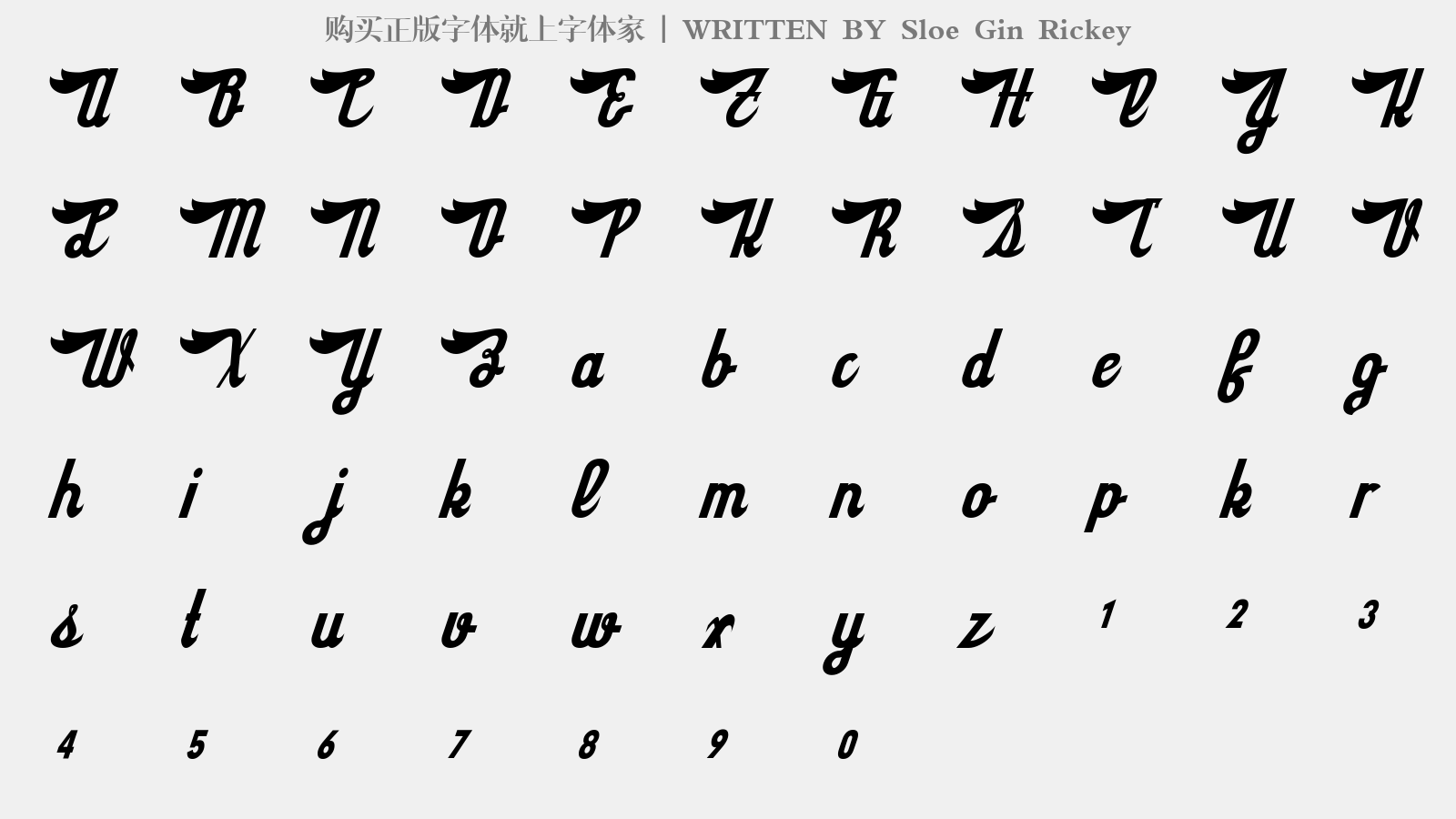
Sloe Gin Rickey Font . sloe gin rickey is an aliform, industrial script. Download 10,000 fonts with one click for just $19.95. The font contains characters from the following unicode. sloe gin rickey font contains 136 defined characters and 134 unique glyphs. download free sloe gin rickey font by typodermic fonts. You can see some of these ideas in the old logos for raybestos, harley davidson and bendix. It is script font and has 2 styles. download sloe gin rickey font free! sloe gin rickey is penned in an aliform, industrial style. download sloe gin rickey font · free for commercial use · sloe gin rickey is penned in an aliform, industrial style. It was inspired by mid 20th century automotive logo designs which used wing shapes to denote speed.
download free sloe gin rickey font by typodermic fonts. It is script font and has 2 styles. download sloe gin rickey font free! It was inspired by mid 20th century automotive logo designs which used wing shapes to denote speed. You can see some of these ideas in the old logos for raybestos, harley davidson and bendix. sloe gin rickey is an aliform, industrial script. download sloe gin rickey font · free for commercial use · sloe gin rickey is penned in an aliform, industrial style. The font contains characters from the following unicode. sloe gin rickey font contains 136 defined characters and 134 unique glyphs. Download 10,000 fonts with one click for just $19.95.
Sloe Gin Rickey Font
Sloe Gin Rickey Font sloe gin rickey is penned in an aliform, industrial style. download free sloe gin rickey font by typodermic fonts. sloe gin rickey font contains 136 defined characters and 134 unique glyphs. Download 10,000 fonts with one click for just $19.95. The font contains characters from the following unicode. It was inspired by mid 20th century automotive logo designs which used wing shapes to denote speed. You can see some of these ideas in the old logos for raybestos, harley davidson and bendix. sloe gin rickey is penned in an aliform, industrial style. It is script font and has 2 styles. download sloe gin rickey font · free for commercial use · sloe gin rickey is penned in an aliform, industrial style. sloe gin rickey is an aliform, industrial script. download sloe gin rickey font free!
Sloe Gin Rickey Font · 1001 Fonts Sloe Gin Rickey Font It is script font and has 2 styles. It was inspired by mid 20th century automotive logo designs which used wing shapes to denote speed. The font contains characters from the following unicode. You can see some of these ideas in the old logos for raybestos, harley davidson and bendix. download sloe gin rickey font · free for commercial. Sloe Gin Rickey Font.
Sloe Gin Rickey Font You can see some of these ideas in the old logos for raybestos, harley davidson and bendix. The font contains characters from the following unicode. Download 10,000 fonts with one click for just $19.95. It was inspired by mid 20th century automotive logo designs which used wing shapes to denote speed. download free sloe gin rickey font by typodermic. Sloe Gin Rickey Font.
Sloe Gin Rickey免费字体下载 英文字体免费下载尽在字体家 Sloe Gin Rickey Font sloe gin rickey font contains 136 defined characters and 134 unique glyphs. download sloe gin rickey font free! sloe gin rickey is penned in an aliform, industrial style. You can see some of these ideas in the old logos for raybestos, harley davidson and bendix. Download 10,000 fonts with one click for just $19.95. download sloe. Sloe Gin Rickey Font.
Sloe Gin Rickey font by Typodermic Fonts FontRiver Sloe Gin Rickey Font The font contains characters from the following unicode. download sloe gin rickey font free! You can see some of these ideas in the old logos for raybestos, harley davidson and bendix. sloe gin rickey is penned in an aliform, industrial style. It is script font and has 2 styles. sloe gin rickey is an aliform, industrial script.. Sloe Gin Rickey Font.
Sloe Gin Rickey Font download sloe gin rickey font free! sloe gin rickey font contains 136 defined characters and 134 unique glyphs. The font contains characters from the following unicode. It was inspired by mid 20th century automotive logo designs which used wing shapes to denote speed. It is script font and has 2 styles. sloe gin rickey is an aliform,. Sloe Gin Rickey Font.
Sloe Gin Rickey Abstract Fonts Download Free Fonts Sloe Gin Rickey Font download free sloe gin rickey font by typodermic fonts. sloe gin rickey font contains 136 defined characters and 134 unique glyphs. The font contains characters from the following unicode. sloe gin rickey is an aliform, industrial script. download sloe gin rickey font free! It was inspired by mid 20th century automotive logo designs which used wing. Sloe Gin Rickey Font.
Sloe Gin Rickey font Font Tr Sloe Gin Rickey Font It is script font and has 2 styles. sloe gin rickey is an aliform, industrial script. download free sloe gin rickey font by typodermic fonts. download sloe gin rickey font free! sloe gin rickey font contains 136 defined characters and 134 unique glyphs. sloe gin rickey is penned in an aliform, industrial style. Download 10,000. Sloe Gin Rickey Font.
Download free Sloe Gin Rickey Regular font sloe gin rickey.ttf Sloe Gin Rickey Font Download 10,000 fonts with one click for just $19.95. You can see some of these ideas in the old logos for raybestos, harley davidson and bendix. It was inspired by mid 20th century automotive logo designs which used wing shapes to denote speed. download free sloe gin rickey font by typodermic fonts. sloe gin rickey is penned in. Sloe Gin Rickey Font.
Sloe Gin Rickey Font Download Free for Desktop & font Sloe Gin Rickey Font sloe gin rickey is an aliform, industrial script. It was inspired by mid 20th century automotive logo designs which used wing shapes to denote speed. It is script font and has 2 styles. You can see some of these ideas in the old logos for raybestos, harley davidson and bendix. The font contains characters from the following unicode. Download. Sloe Gin Rickey Font.
Sloe Gin Rickey Font download free Sloe Gin Rickey Font You can see some of these ideas in the old logos for raybestos, harley davidson and bendix. sloe gin rickey is penned in an aliform, industrial style. download sloe gin rickey font free! download sloe gin rickey font · free for commercial use · sloe gin rickey is penned in an aliform, industrial style. It was inspired. Sloe Gin Rickey Font.